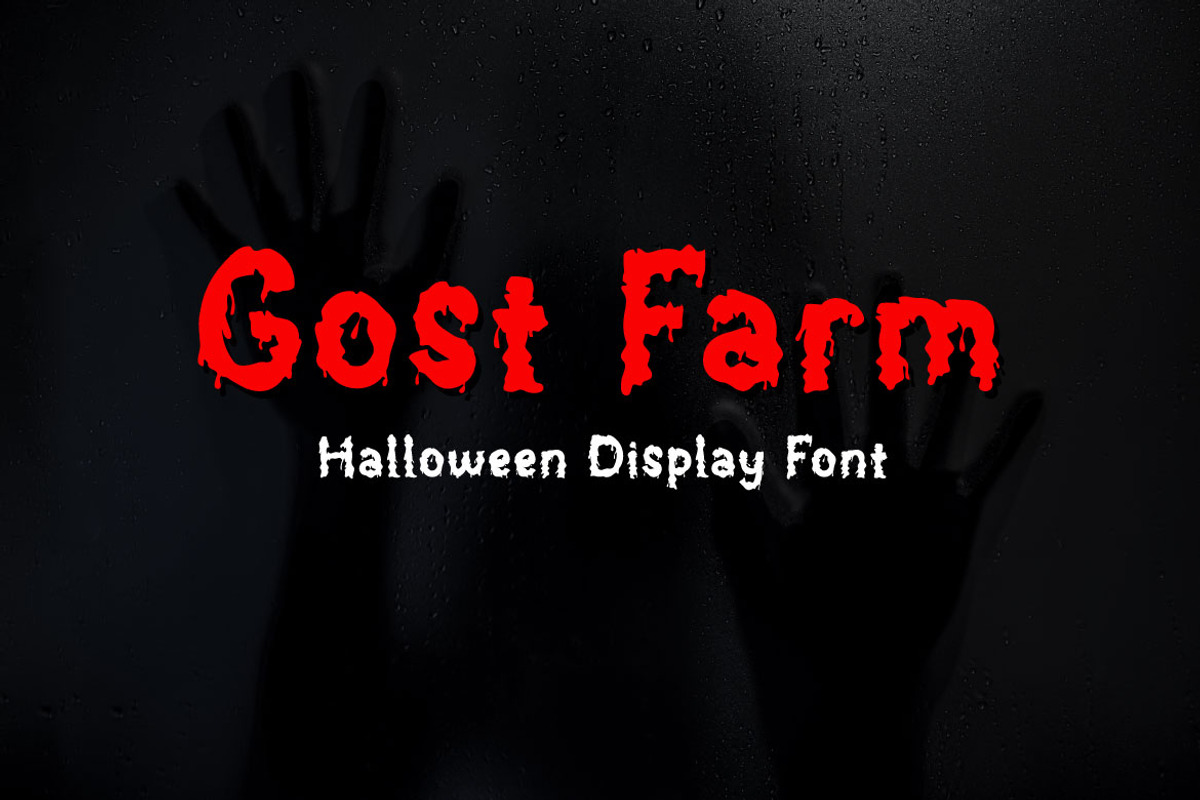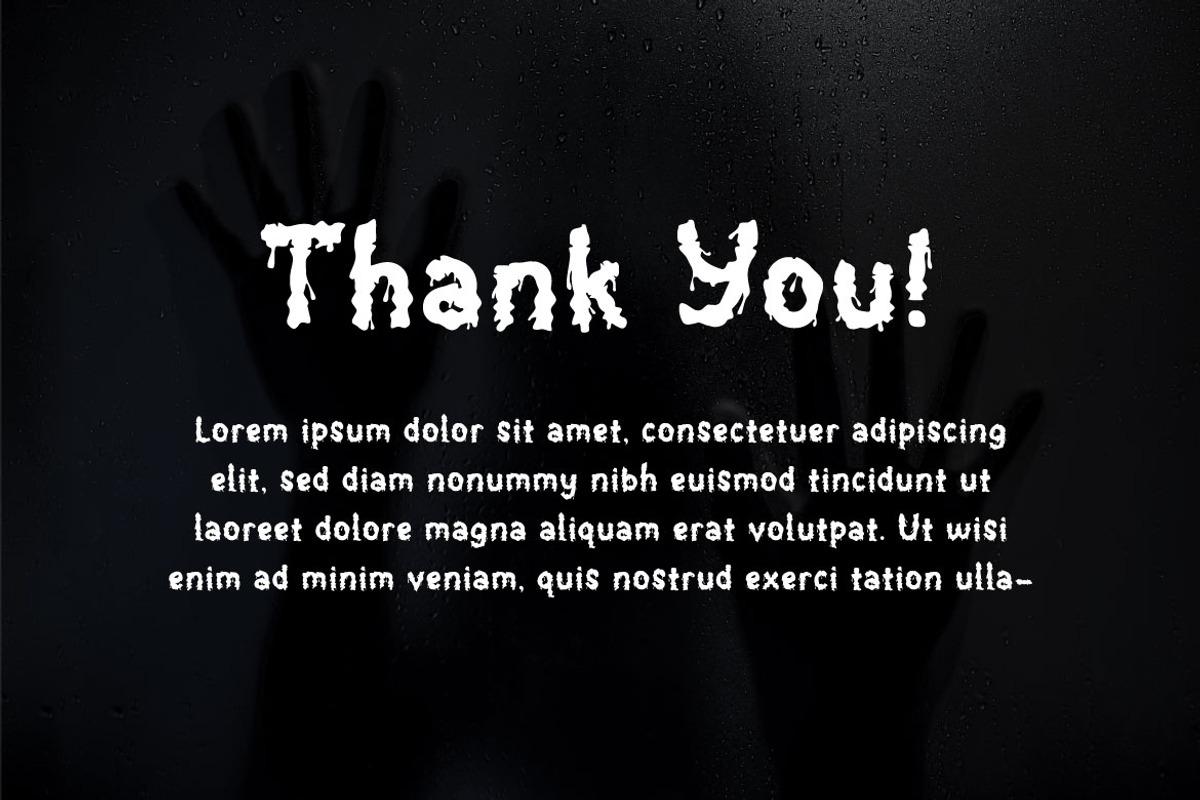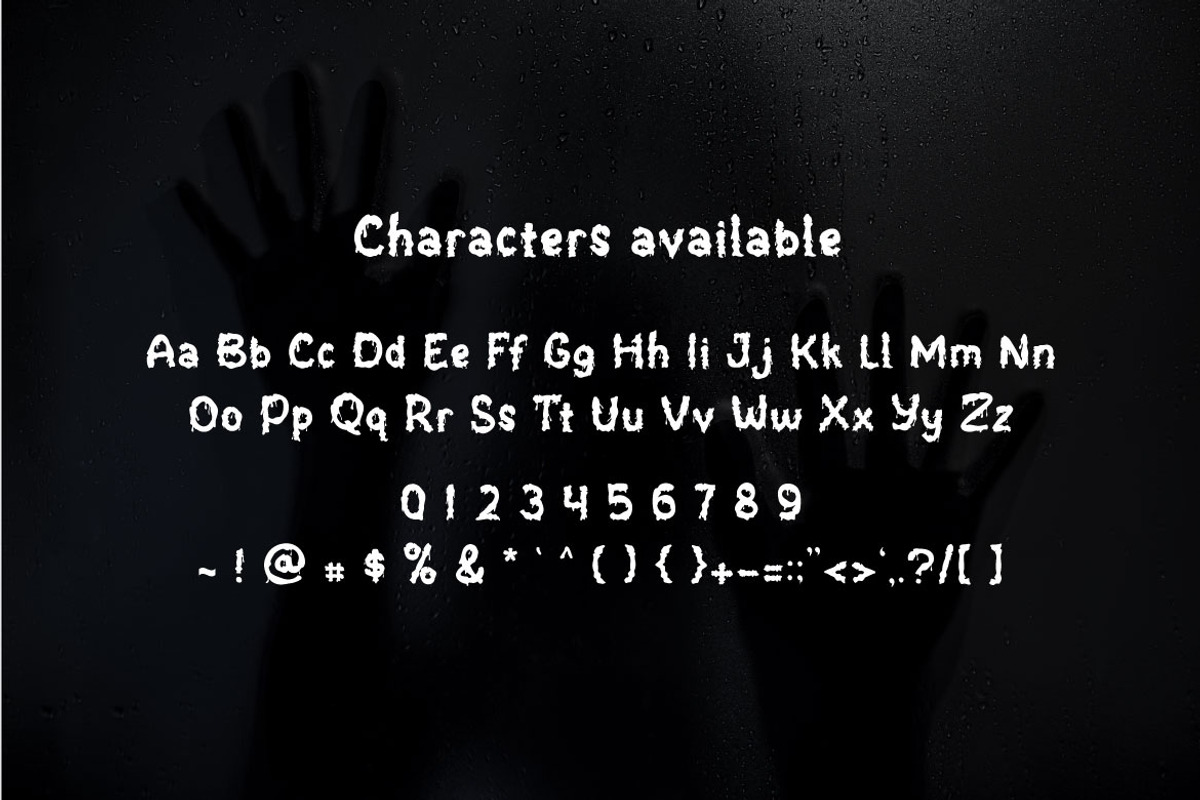
Gost Farm - Halloween Font
If you are looking for a horror Halloween display font, meet GOST FARM
Gost farm is perfect for any horror works, such as Halloween card, Horror book title, Horror headline of news, banner, flyer, stationery and many more. It also can be used in Any scale work.